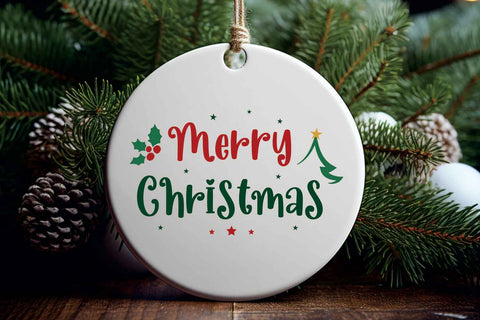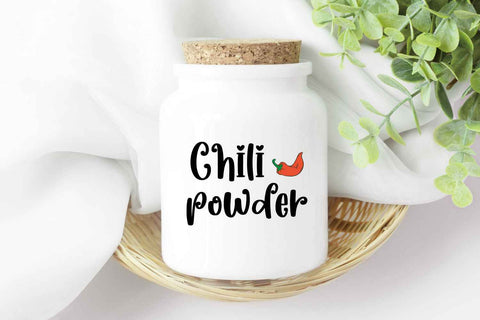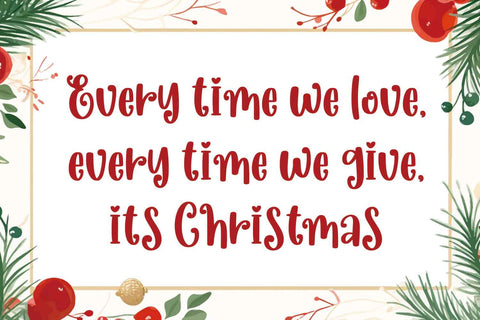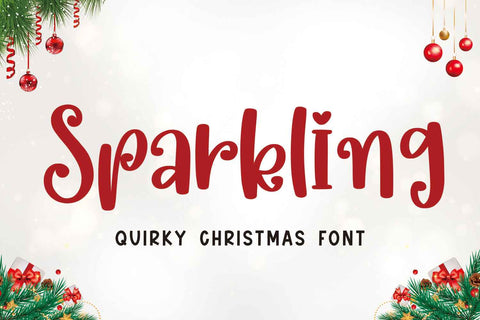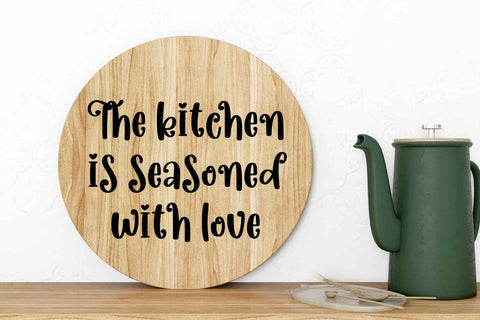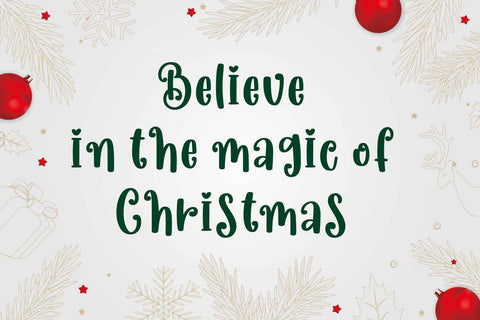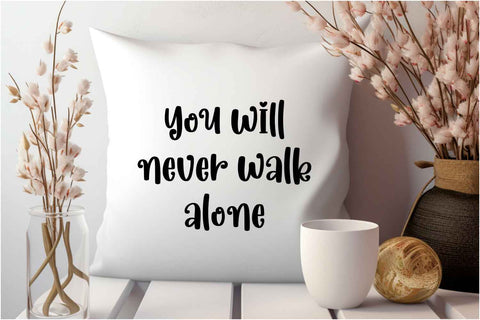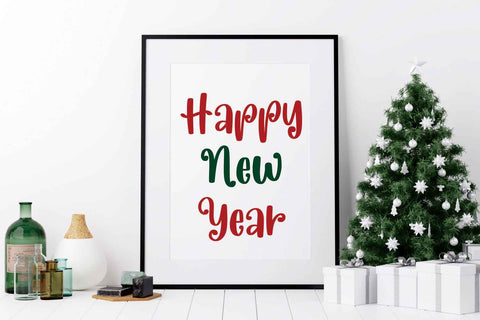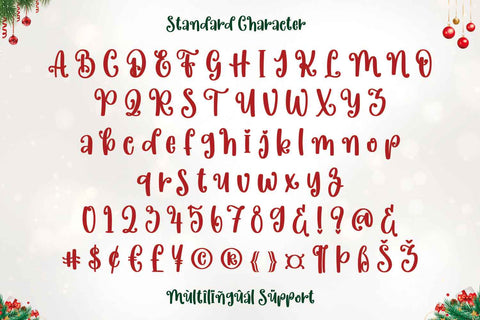
Sparkling - Christmas Font
Introducing Sparkling Font - the epitome of quirky and cute handwritten style! Perfect for adding a delightful touch to your embroidery projects, this font exudes charm and personality that's simply irresistible. Whether you're expressing gratitude during Thanksgiving, capturing the essence of summer, welcoming the warmth of spring, embracing the coziness of fall, or celebrating the magic of winter, Sparkling Font is your go-to choice for crafting projects that radiate joy and creativity.
Get ready to infuse your crafts with a burst of whimsy and charm with Sparkling Font. Elevate your craft lettering to new heights as you effortlessly weave a tapestry of creativity and warmth into your designs. From festive holiday decor to heartfelt thank-you notes, this font brings your imagination to life with its playful yet elegant strokes. Don't miss out on the opportunity to add a touch of Sparkling Font magic to your next project!
Unlock a world of creative possibilities with Sparkling Font today! Whether you're stitching a heartfelt message for a loved one or crafting seasonal decorations, this font is your secret weapon for adding that extra dose of charm and character. Embrace the spirit of creativity and let Sparkling Font be your guide to crafting memories that sparkle and shine. Get started now and let your imagination take flight!